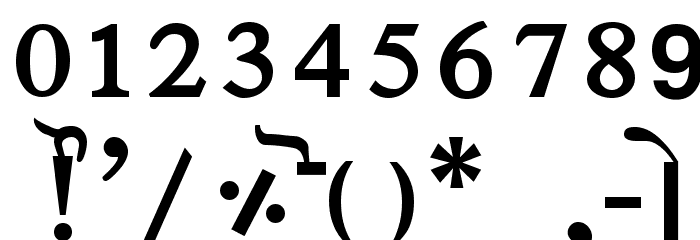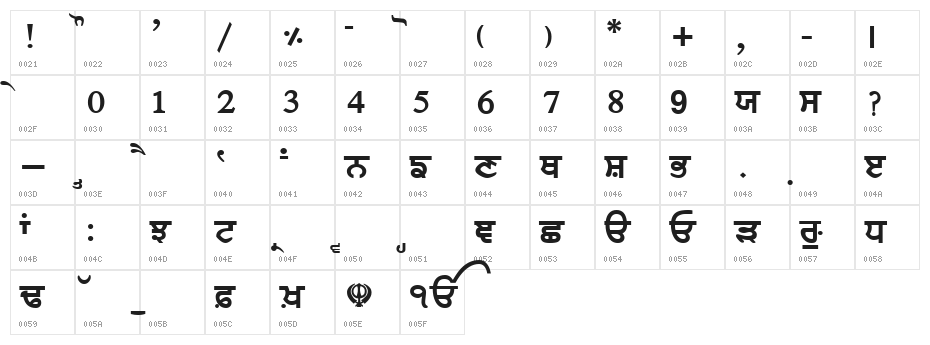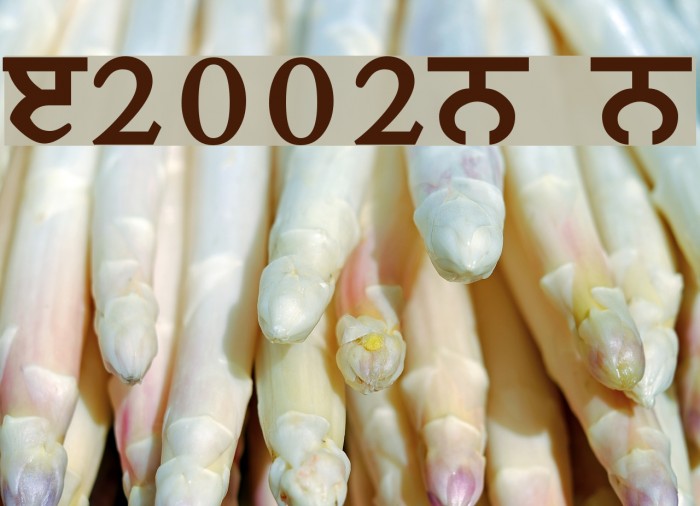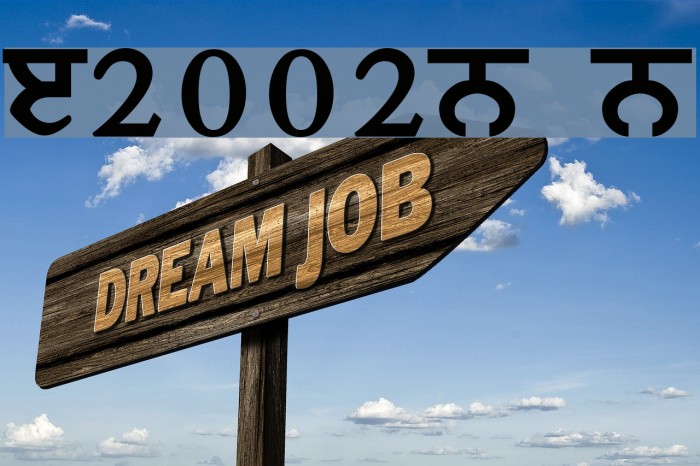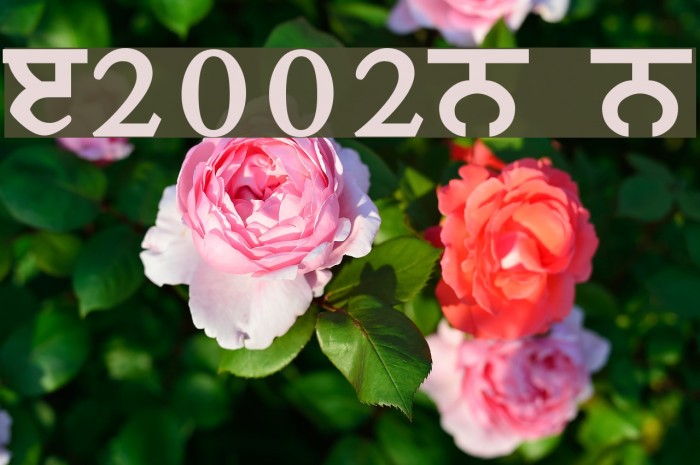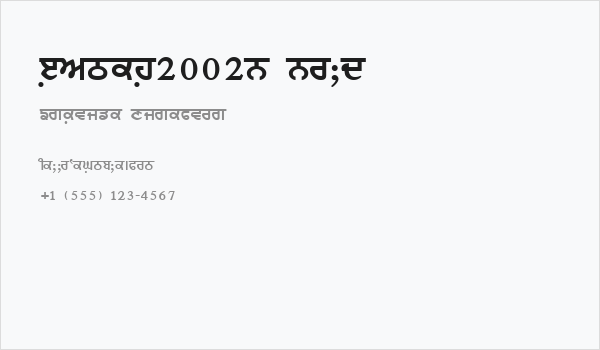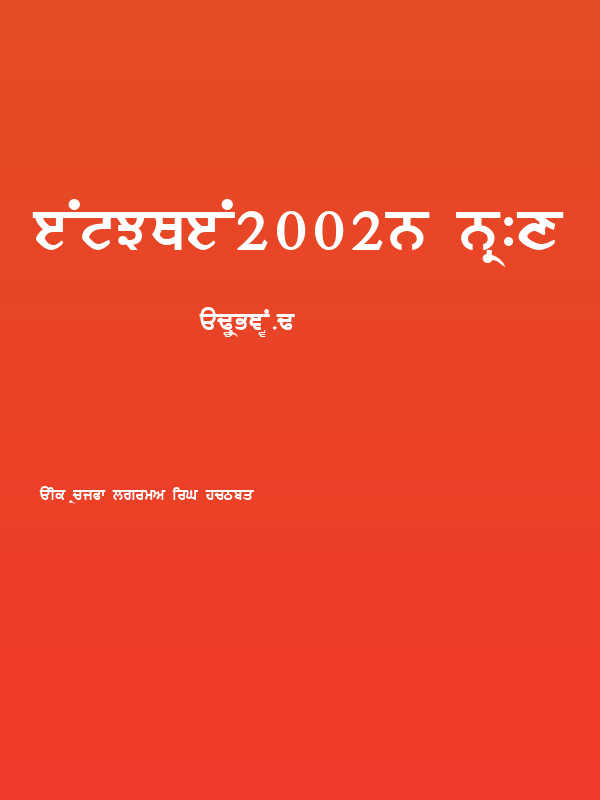
Janmeja2002B Bold Font
Janmeja2002B Bold Description
This font presents a bold and striking appearance with its thick strokes and strong presence. The characters are well-defined, featuring a modern and clean design that ensures readability. The numerals are consistent with the overall style, maintaining the boldness and clarity seen in the alphabet. Special characters are distinct and complement the font's robust nature. The font's design is suitable for making impactful statements, with a focus on clarity and strength.